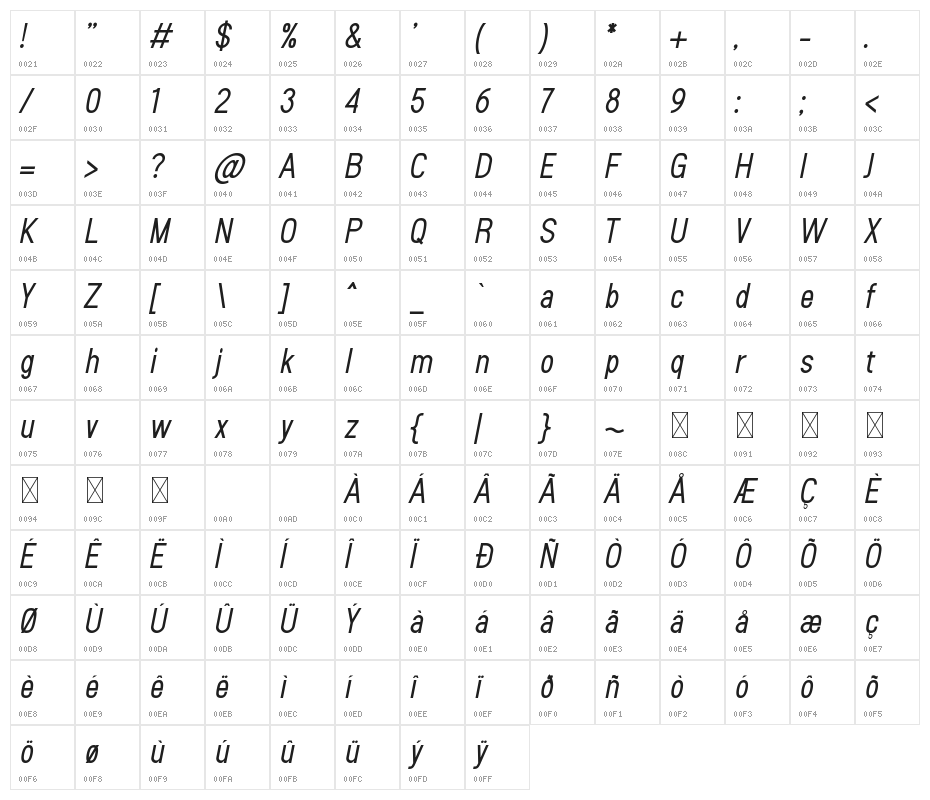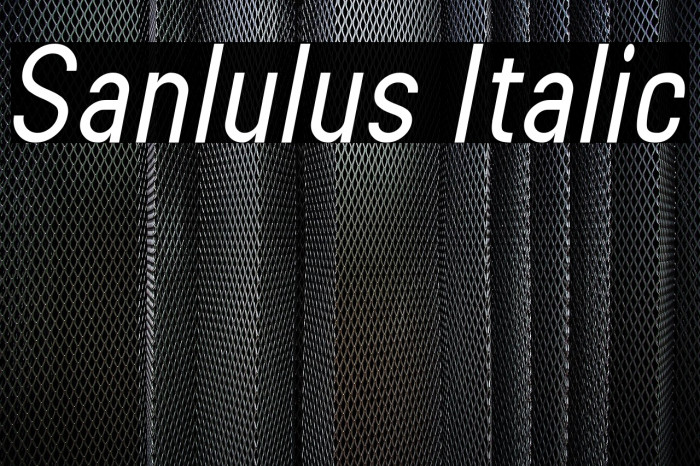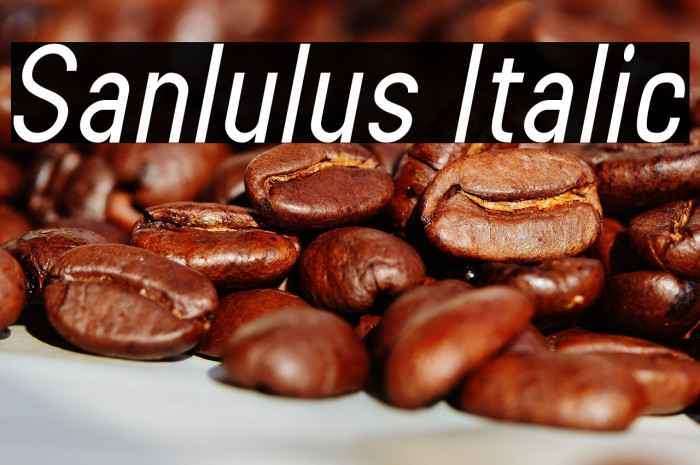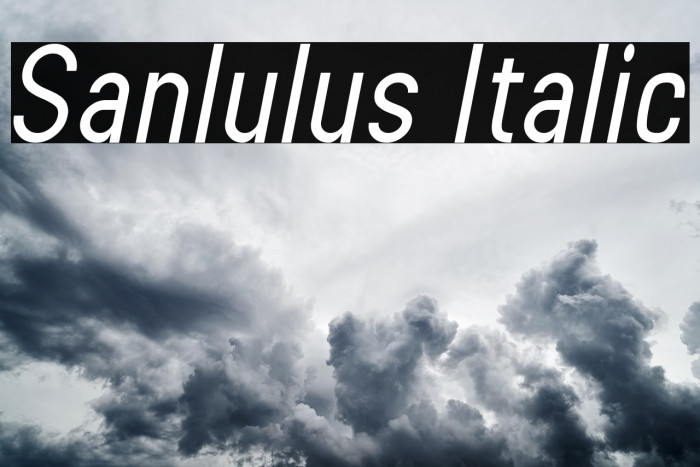
Sanlulus Italic Font
Sanlulus Italic Description
This font features a sleek and modern italic style, characterized by its slanted and streamlined letterforms. The typeface exhibits a sans-serif design, offering a clean and contemporary appearance. The characters are slightly condensed, providing a compact and efficient use of space. The stroke contrast is low, ensuring a uniform thickness throughout each character, which enhances readability. The font includes a full set of uppercase and lowercase letters, numbers, and a variety of special characters, making it versatile for different applications. Its italic nature adds a dynamic and forward-moving feel, suitable for projects that require a touch of elegance and sophistication.
| Proposed Projects | Ideal for branding, advertising, editorial design, and digital interfaces where a modern and elegant touch is desired. |